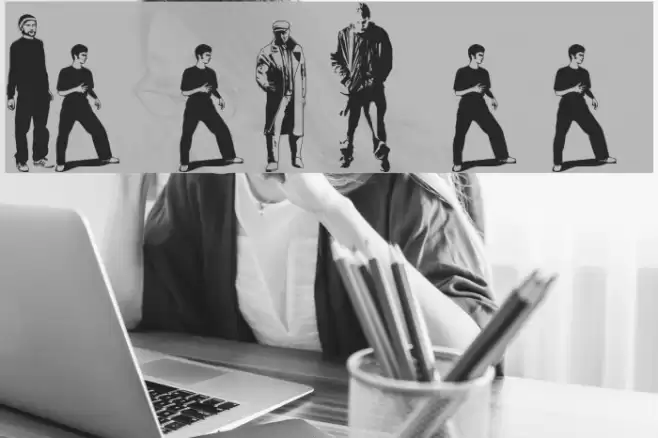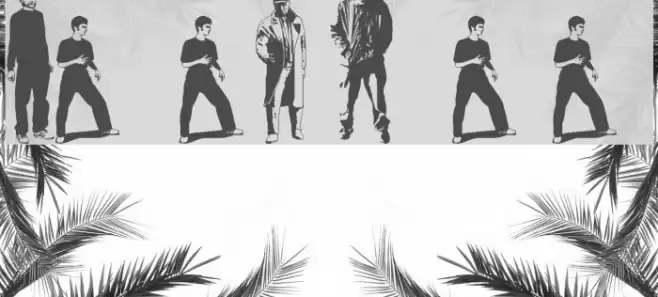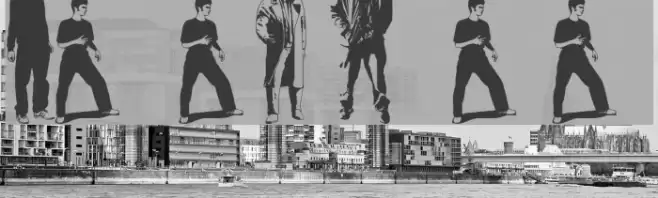
fenotype dings # people 0.5 Font
fenotype dings # people 0.5 Description
A collection of black and white silhouette-style illustrations depicting people in various poses, including standing, walking, and using a camera tripod. The figures are detailed and realistic, with strong contrast and no text elements.
Silhouette illustrations of people in various poses from Dingbats fonts.
- Overall Style: Decorative, Realistic
- Use Case: Decorative elements, icons, illustrative accents